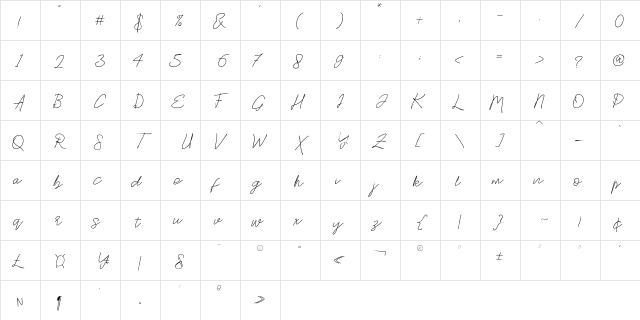
Stylish Script Regular
Design Context for Stylish Script Typeface
Stylish Script flows with the natural rhythm of handwritten lettering, making it ideal for designs that call for warmth and personal expression.
Font Pairing: Combine Stylish Script with a simple geometric sans for maximum contrast — the tension between flowing curves and clean structure is a classic typographic pairing.
Pro Tip: Pair Stylish Script with a clean sans-serif for supporting text. The contrast between fluid script and geometric structure creates an elegant typographic hierarchy.